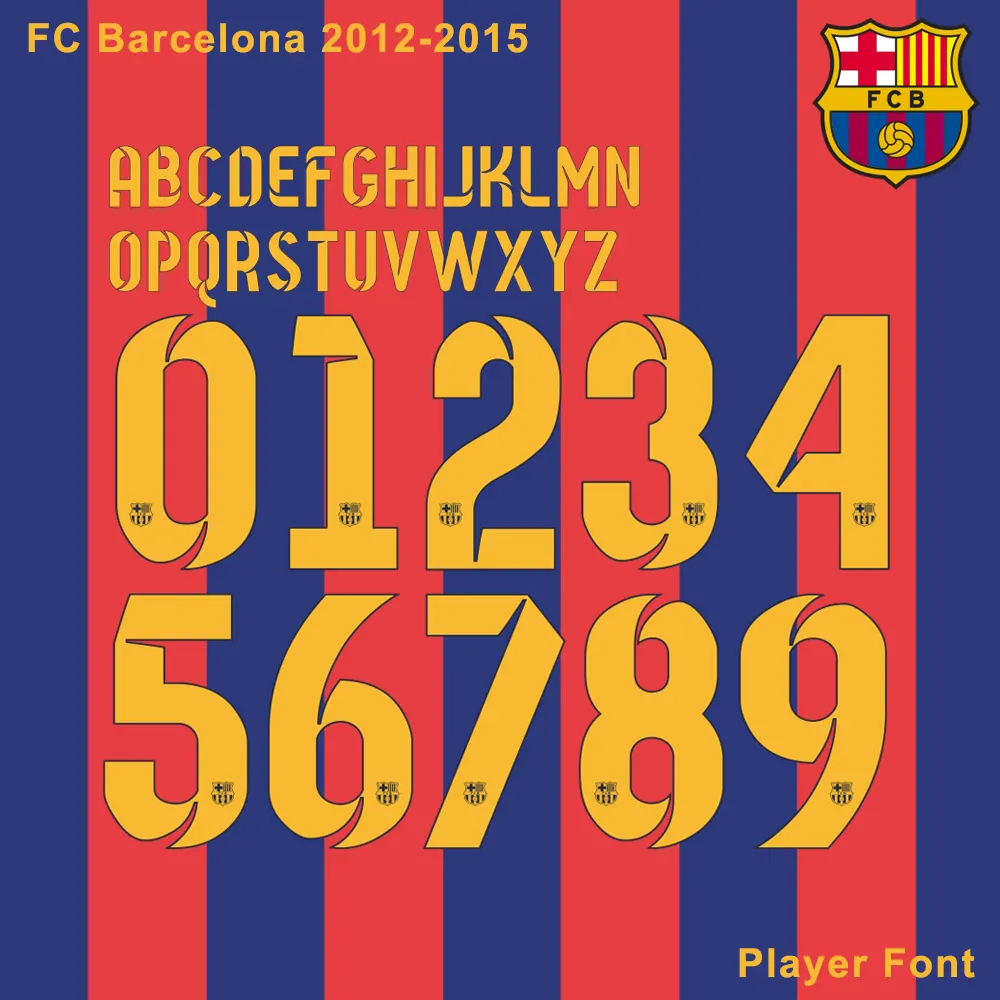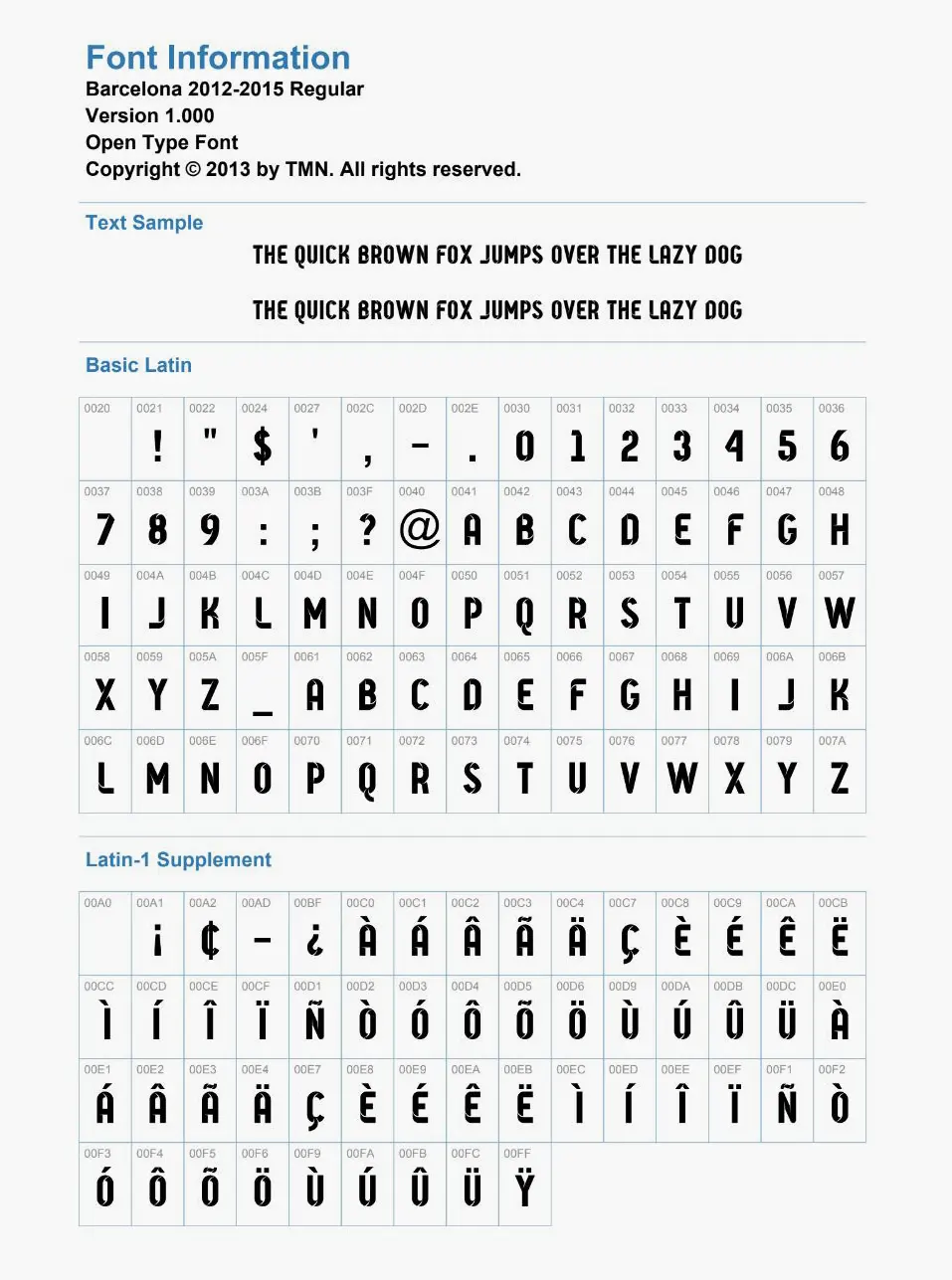
FC Barcelona 2012-2015 Kit Font
Relive the golden era of the Camp Nou with the FC Barcelona 2012-2015 Kit Font. This distinctive, rounded typeface was featured on the iconic kits of the 2012-13, 2013-14, and the treble-winning 2014-15 seasons. Includes installable TTF/OTF fonts and production-ready AI, CDR, and PDF vector files.
Bring the legendary “Mes Que Un Club” style to your designs with the FC Barcelona 2012-2015 Kit Font.
This font represents one of the most successful periods in FC Barcelona’s history. Known for its soft curves and modern aesthetic, this typeface was used across multiple Nike kit designs, including the famous 2014-15 home shirt. It is a must-have for fans looking to restore classic jerseys or designers creating retro-themed sports graphics.
• Complete Character Set: Includes all uppercase letters (A-Z) and the iconic 0-9 number set with the unique “Barca” styling.
• Customizing Retro Barcelona Jerseys with names like Messi, Xavi, or Iniesta.
• Creating high-quality posters, digital art, and social media content.
• Professional apparel production for fan clubs and local teams.